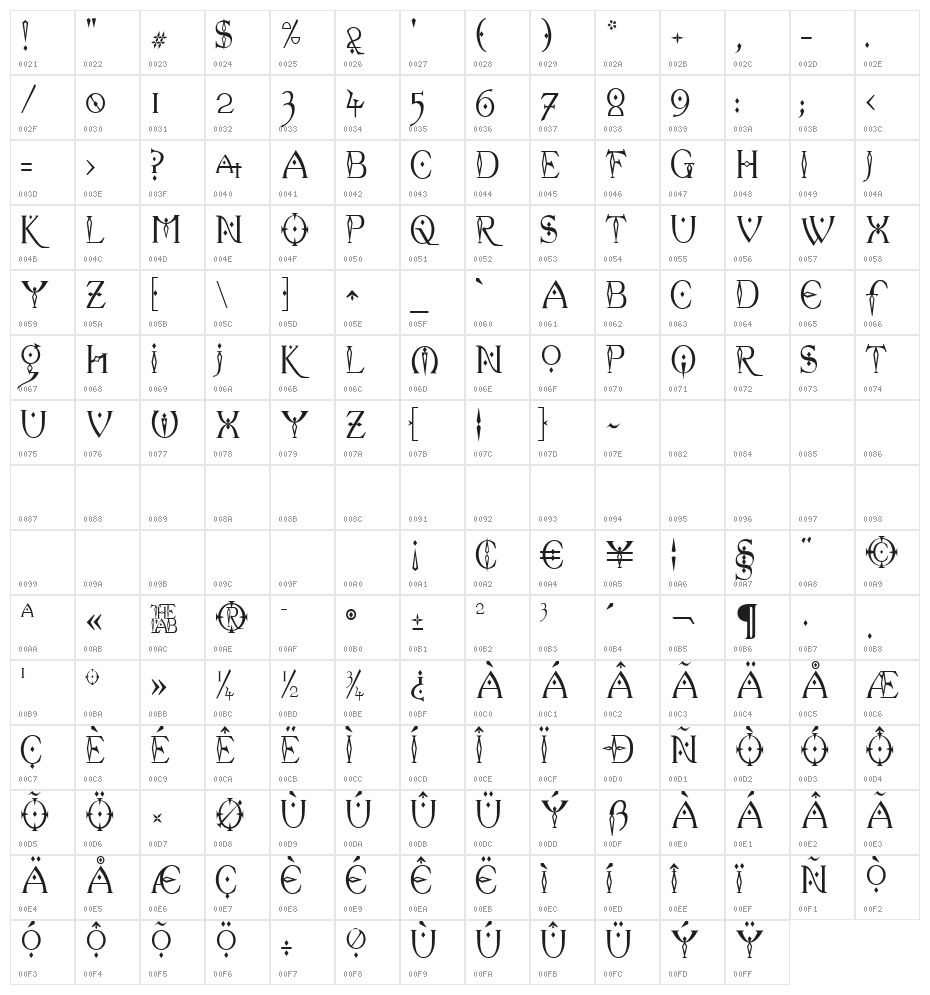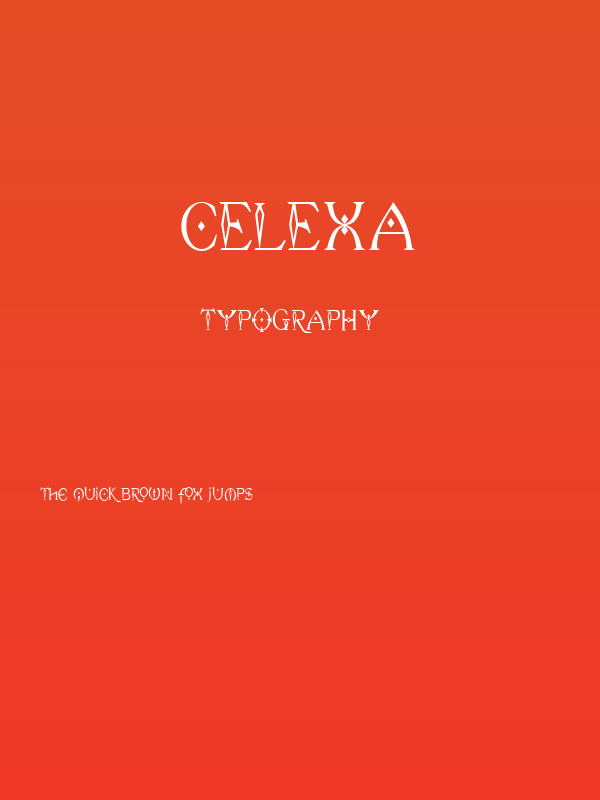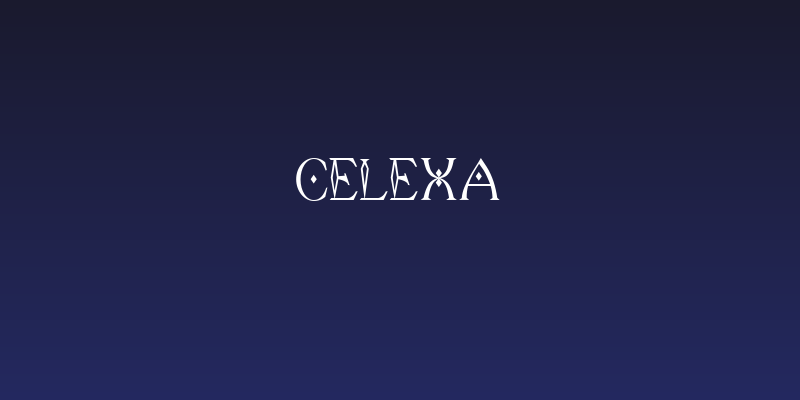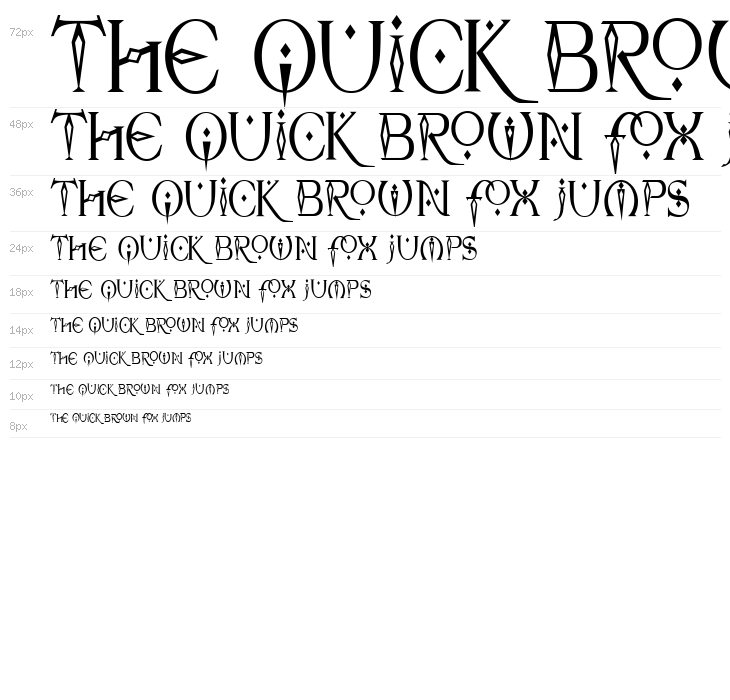
Celexa Font
This font features a highly decorative and intricate design, characterized by sharp angles and unique embellishments that give it a mystical and gothic appearance. Each letter is adorned with pointed serifs and internal accents that resemble spikes or thorns, creating a sense of drama and intensity. The numbers and special characters maintain this theme, with consistent angular and pointed elements. The overall aesthetic is both bold and artistic, making it suitable for projects that require a strong visual impact. The font's unique style can evoke a sense of mystery and elegance, ideal for creative and thematic designs.
| Overall Style | Gothic, Decorative |
| Proposed Projects | Ideal for fantasy-themed posters, book covers, gothic event invitations, and artistic branding. |